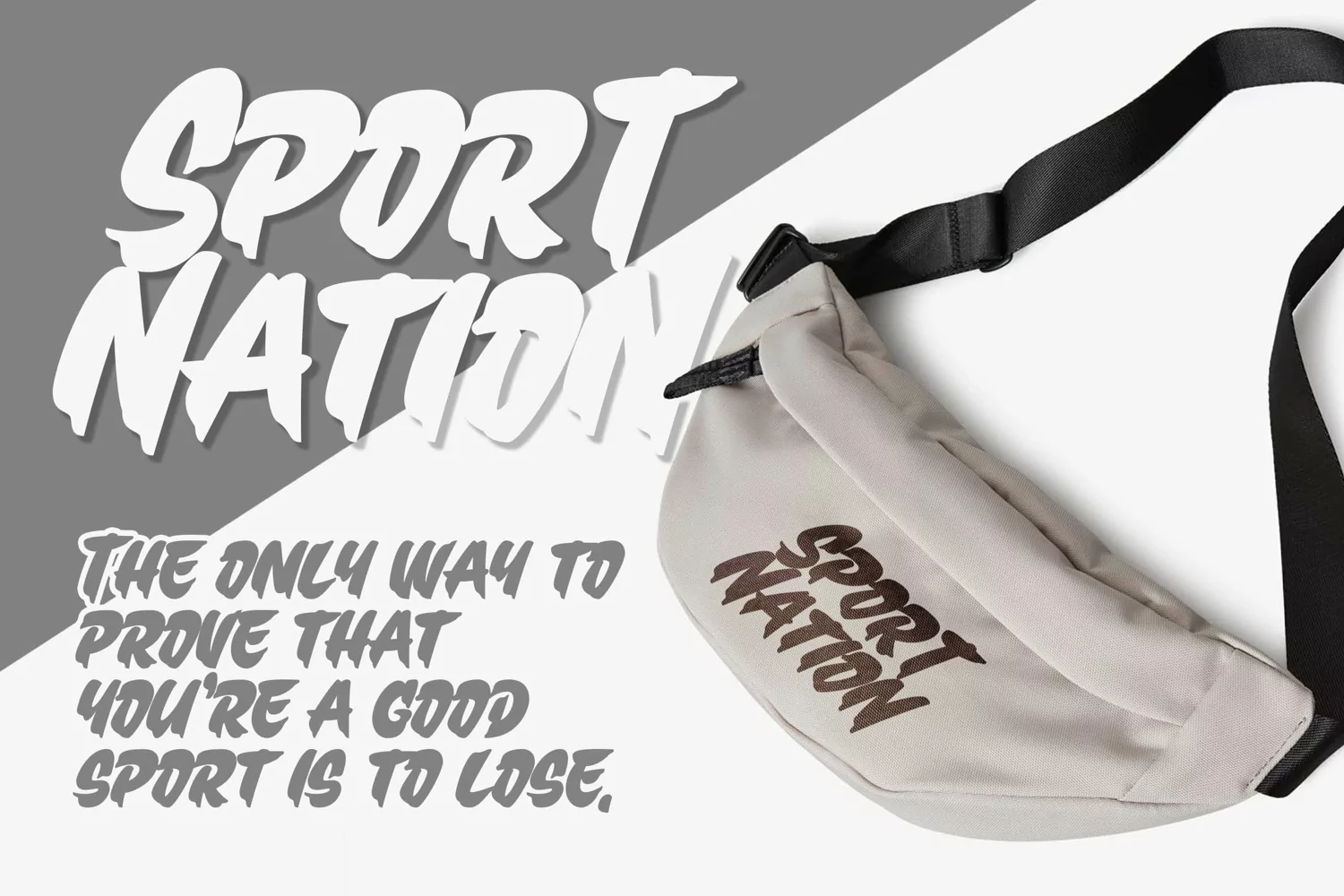
Introducing of our new product the name is Brenza an Urban Font, Brenza inspired by urban style letters with a fun theme very good for poster, flyer, logotype, urban theme design.